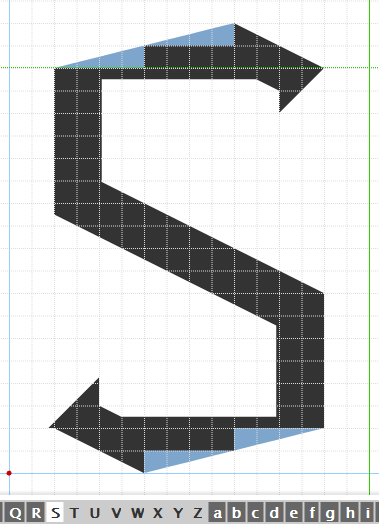
This had a fraught life. I had the lower case half-constructed, saving all the way, when I entered server-disconnect hell and lost it all. Once more with feeling. I should have been working on the upper case at the same time, to make sure it was doable.
It possibly is doable, but I can't face it just now.
Ah, intaglio – who’s style is unmistakable. While capitals might seem impossible here – they may yet prove to you, “I’m possible, dear.” Have a go, and another. From one fontstructor to you, my brother. :)
The lowercase is such a delight it deserves a bigger brother. If anyone can achieve that then it's you. Meanwhile, 10/10++ for the l/c
I love it! Great work. The D and O show foundations for C's, P's, and Q's. 10/10 for the lc
Hmmm... How nice smelling a freshly baked font!...
Nice! At small sizes the angles can disappear and form a really cool extended face. 10/10
This looks beautiful. I hope you'll find the caps. If I give 10/10 now I have to ask FS for a medal system to be allocated for special designs, and to have that available when you have those reluctant caps.
Thank you everybody for your kind comments. I either have to make everything in the caps conform to the D option, which would make the B, E, F, L etc at least do-able, or I have to stick with the O shape for conformity, which makes the mentioned glyphs a sticky problem.
I picked a rather fuller width for some of the l/c glyphs so that the x wouldn't appear too wide; perhaps I should trim them back and let the x appear a little wider than it should be. The a, particularly, irks me in its present form.
Great start, looking forward to more!
Typography has an inexorable logic to it which is by turns delightful and awful. Delightful when logic creates a sense of beauty and order; awful when decisions made in the inception come back to bite you.
That's the maddening charm of it.
For instance, these angles rather determine the width of the letter because I can't make composites of them, being composites already. So there's a disparity between the upper and lower case versions.
"Typography has an inexorable logic to it which is by turns delightful and awful. It's delightful when logic creates a sense of beauty and order; awful when decisions made in the inception come back to bite you. That's the maddening charm of it."
You speak with really true words IMHO...
The diference between Upper and lower doesn't really show - the Upper characters being wider anyway.
Some times I think we stand too close to our designs and worry about things that others probably won't notice.
You're right, of course. But we wouldn't be interested in typography if we didn't veer a bit too close to the obsessional, would we?
True enough - you'll notice I said 'we' :)
Try this micro-adjustment for the shoulder of your S. Please note also the three arrows indicating: 1) a composite allowing you half-brick variance; 2) suggestion to raise the spine by half a brick; 3) adjusting the left side bearing by shifting the character one brick to the left.
Wow, ingenious. Obviously I haven't obsessed about this nearly enough.